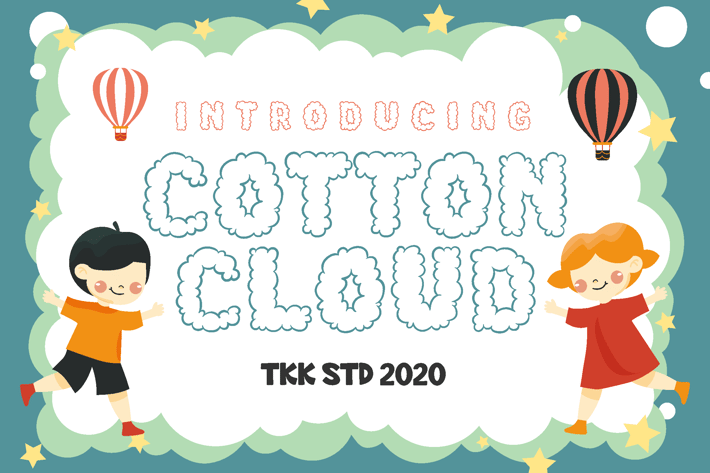
Cotton Cloud - Kids Cute Font
Cotton Cloud
Cotton Cloud is a handcrafted kids display font designed with a bouncy baseline, cloud-like curves, and gentle rounded forms. With its airy, pillowy appearance and expressive strokes, this font channels a warm, joyful energy that appeals directly to young audiences and playful projects. The vibe is friendly, lighthearted, and imaginative—perfect for designers looking to create soft, child-safe visual language. The structure features low contrast, soft terminals, and wide proportions, making it ideal for visibility across print and digital use.
From children’s clothing labels and toy packaging to birthday invitations, kids apps, and educational branding, Cotton Cloud adds a sprinkle of magic to any design. The font brings out trust, warmth, and innocence, making it especially suitable for early childhood markets, parent-focused businesses, or any brand aiming to project gentleness and delight in their tone.
Why Designers Love Cotton Cloud:
✦ Puffy and rounded for a soft, welcoming feel
✦ Easy-to-read structure perfect for toddlers and parents alike
✦ Cheerful look suitable for everything from T-shirts to book covers
✦ Kid-approved energy with a gentle, relaxed bounce
✦ Balanced spacing for clean display across formats